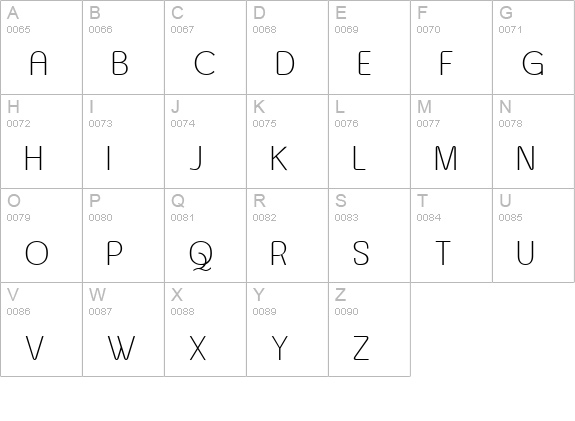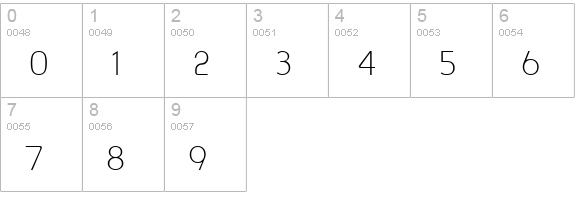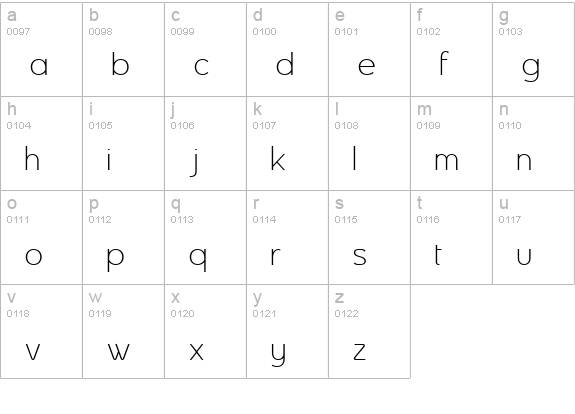
Asenine Font Details
Asenine font is a stylish and modern typeface that exudes confidence and sophistication. With its unique geometric shapes and sharp edges, Asenine font is perfect for making a bold statement in your designs. Whether you're creating a logo, poster, or website, this font will definitely stand out. The best part? Asenine font is completely free to download at FontsMarket.com. You can easily add this eye-catching font to your collection and use it in any personal or commercial project without any restrictions. So go ahead and elevate your designs with the sleek and contemporary Asenine font today!